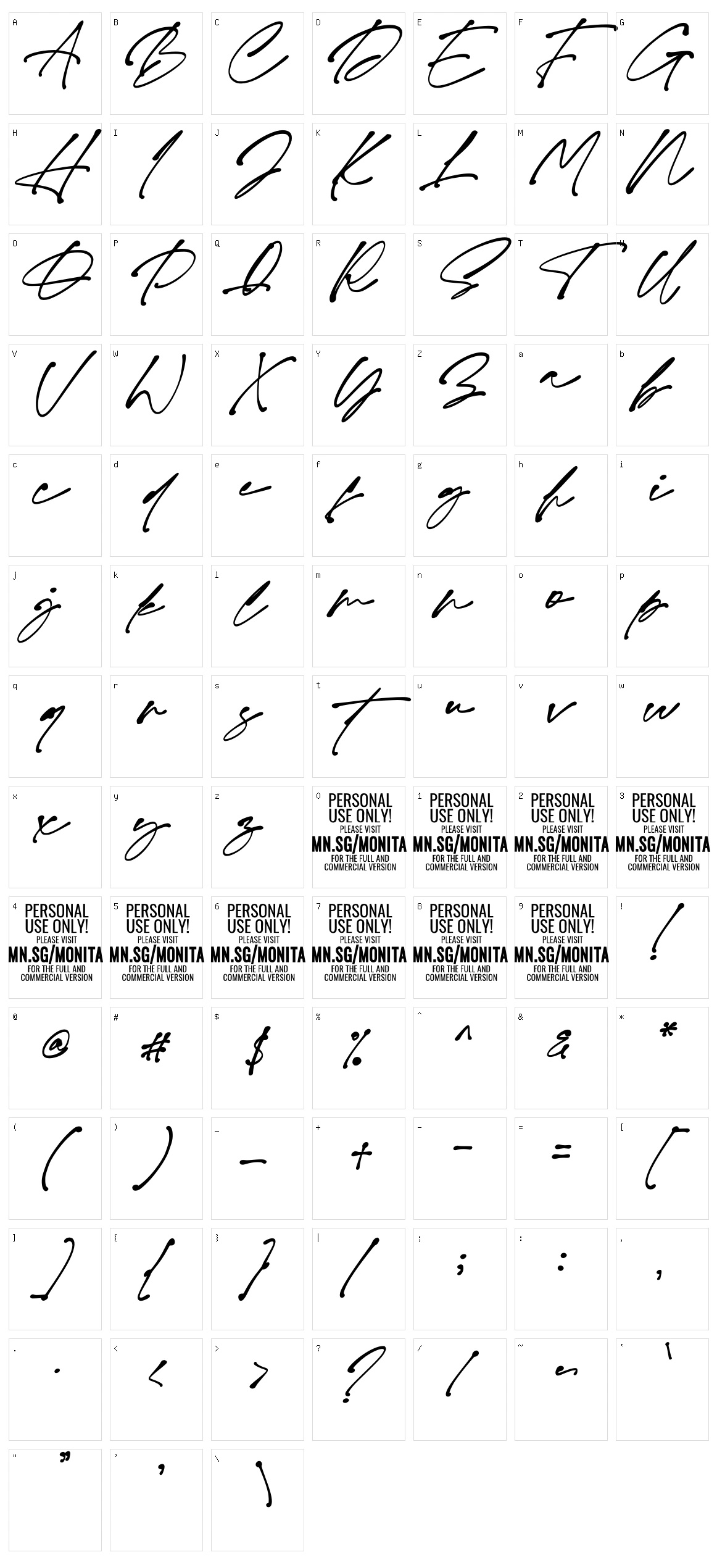
Monita Signature is a inky script typeface.
Wild and untamed, this calligraphic lettering brings life and personality to any graphic project.
The font is built with advanced OpenType functionality and has a guaranteed top-notch quality, containing stylistic and contextual alternates, ligatures and more features; all to give you full control and customizability.
It has extensive lingual support, covering all Latin-based languages, from North Europe to South Africa, from America to South-East Asia.
It contains all characters and symbols you'll ever need, including all punctuation and numbers.